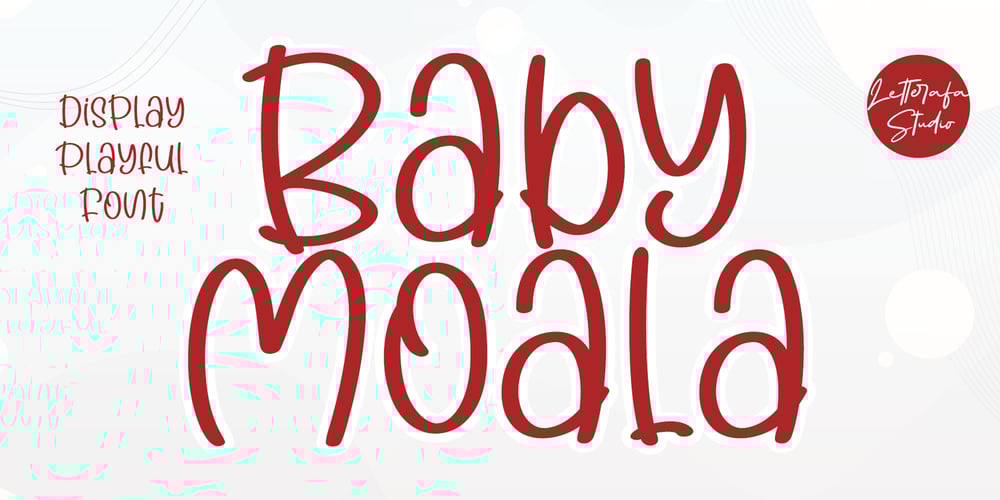
Baby Moala Font Family was designed by Ahmad Afandi and published by Letterafandi Studio. Baby Moala contains 2 styles and family package options. Baby Moala is a simple, fun and display handwritten font. This adaptable font will look great on a variety of design ideas. It will add a fun and friendly touch to each of your projects!